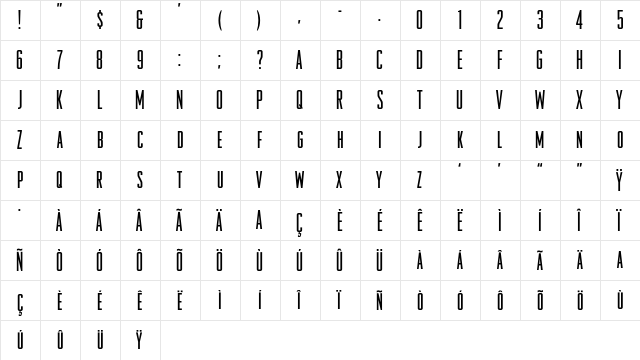
OdeonCondensedRegular Font Preview
OdeonCondensedRegular Regular
OdeonCondensedRegular Font Details
Design Context for OdeonCondensedRegular Typeface
OdeonCondensedRegular takes a measured approach to typography — its balanced proportions and neutral character make it a reliable workhorse for both digital and print work. Its narrow stance lets it pack a punch even in space-constrained designs.